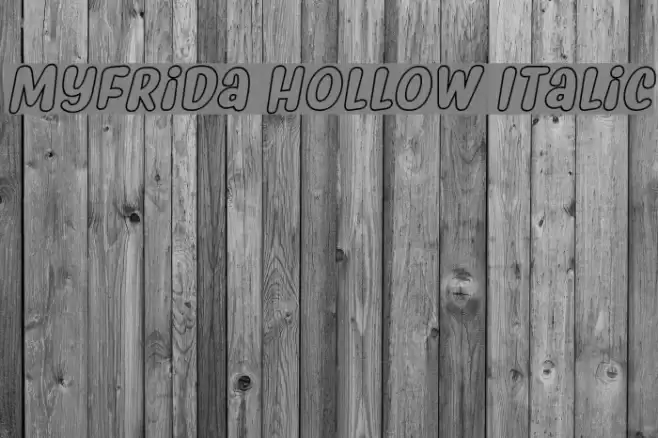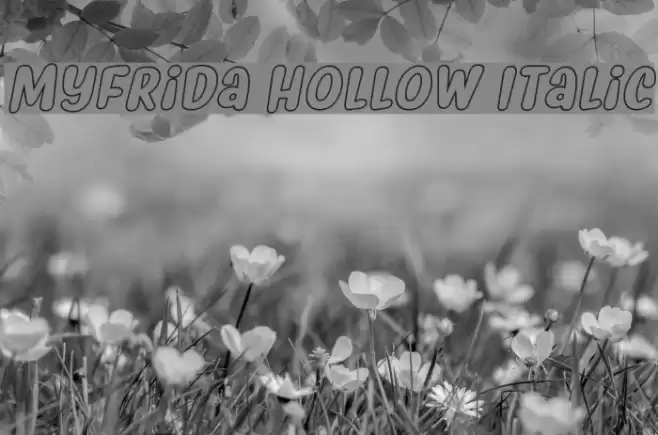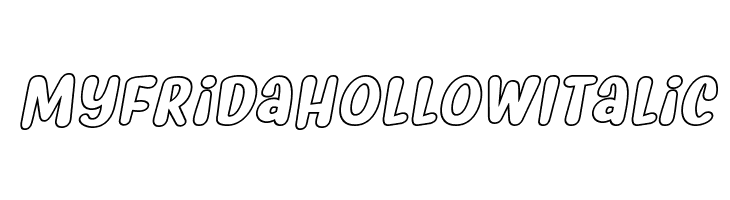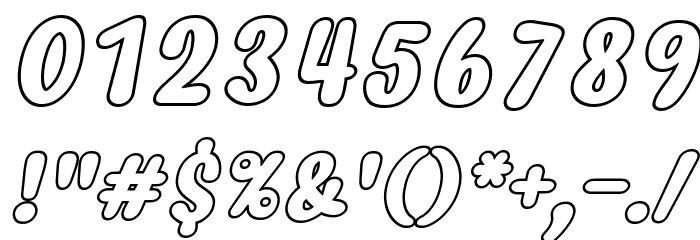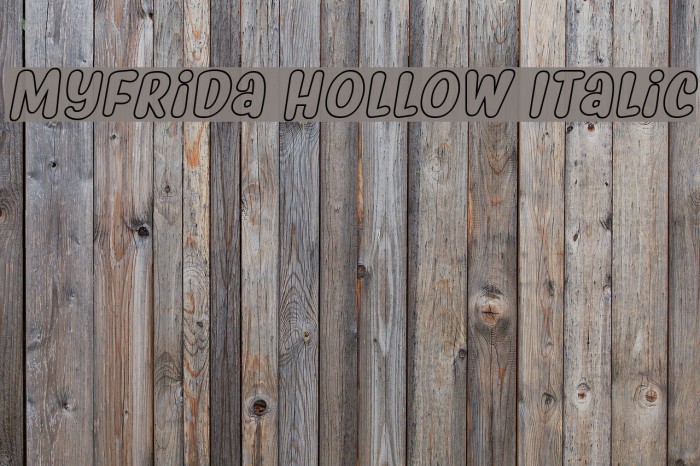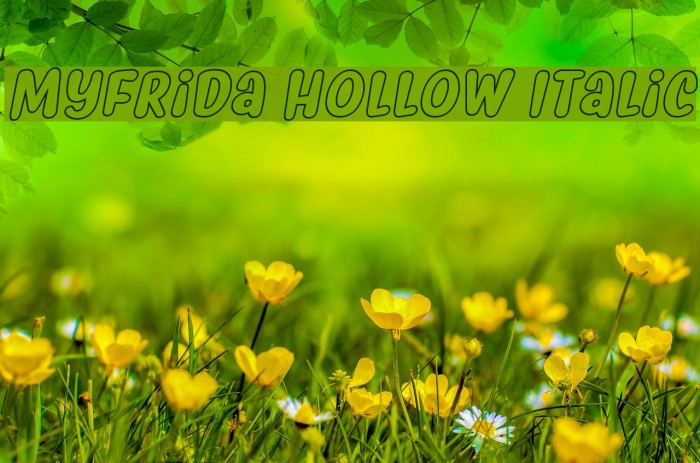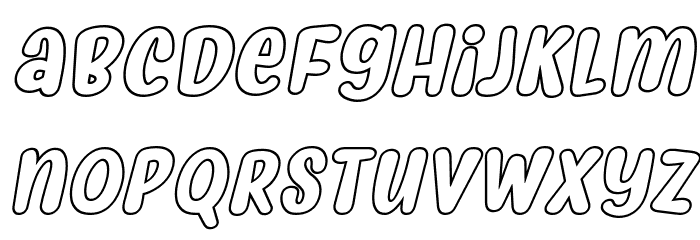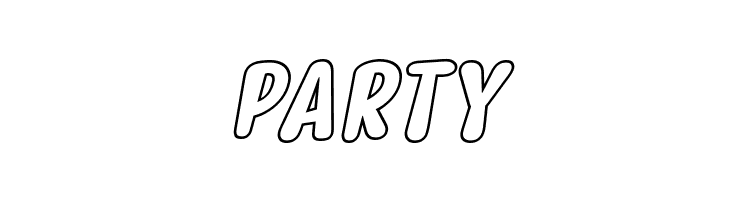
Myfrida Hollow Italic Font
Myfrida Hollow Italic Description
This font features a playful and bold hollow design, with each character outlined to create a unique visual effect. The letters are rounded and slightly italicized, giving them a dynamic and lively appearance. The uppercase and lowercase letters maintain a consistent style, while the numerals and special characters complement the overall aesthetic. The hollow nature of the font allows for creative use of background colors or textures to show through the characters, making it ideal for eye-catching designs.
A playful, bold, and hollow italic font with rounded characters from Fancy fonts.
- Overall Style: Playful, Modern